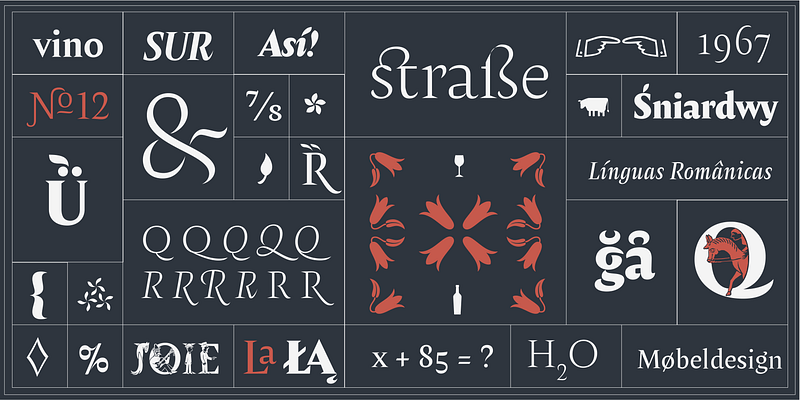
Amster Font Free Download
Amster Font Free Download is a stylish and modern serif typeface with sleek, sharp lines and a bold presence. Its unique design combines classic serif elements with a contemporary twist, making it perfect for branding, editorial designs, luxury packaging, headlines, and logo designs.
Amster Font works beautifully in both large display text and smaller body copy, ensuring legibility without sacrificing elegance. It integrates seamlessly with design software like Adobe Illustrator, Photoshop, Figma, and Canva, making it suitable for both print and digital applications.